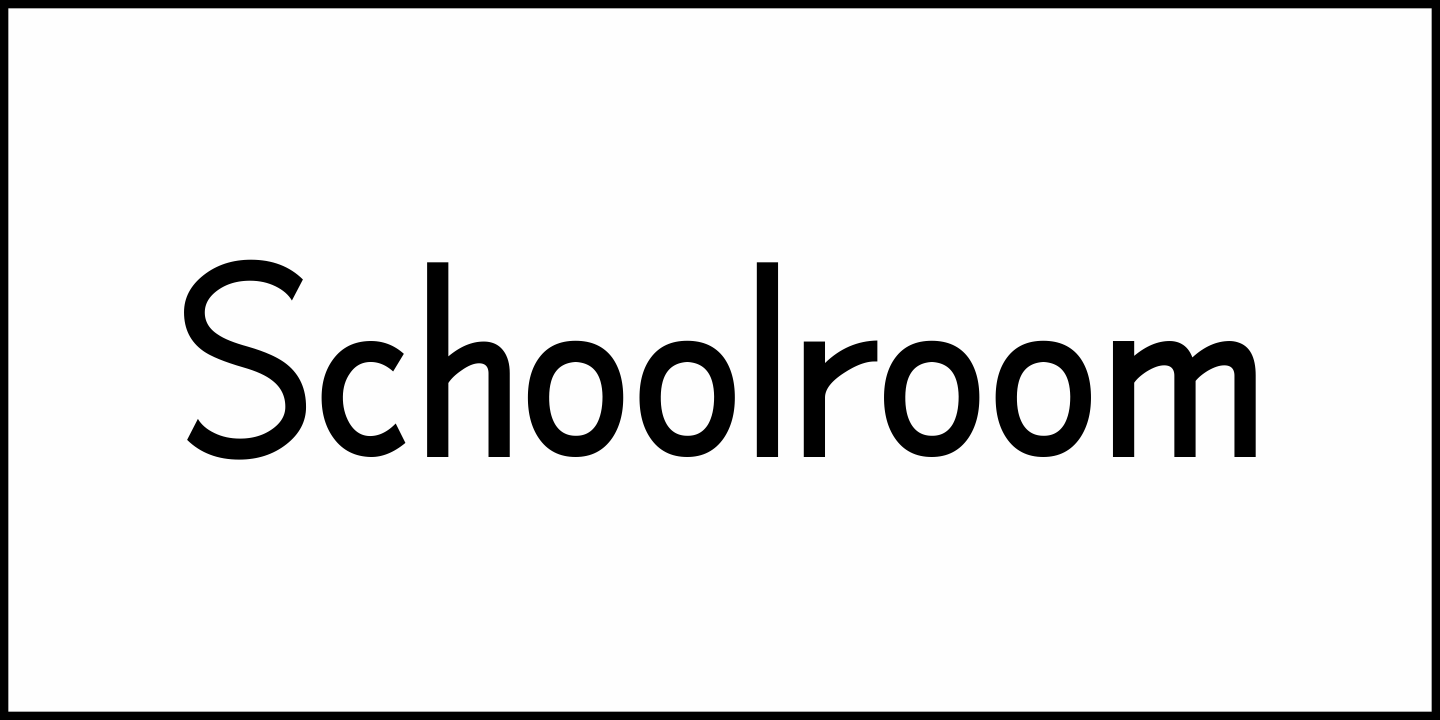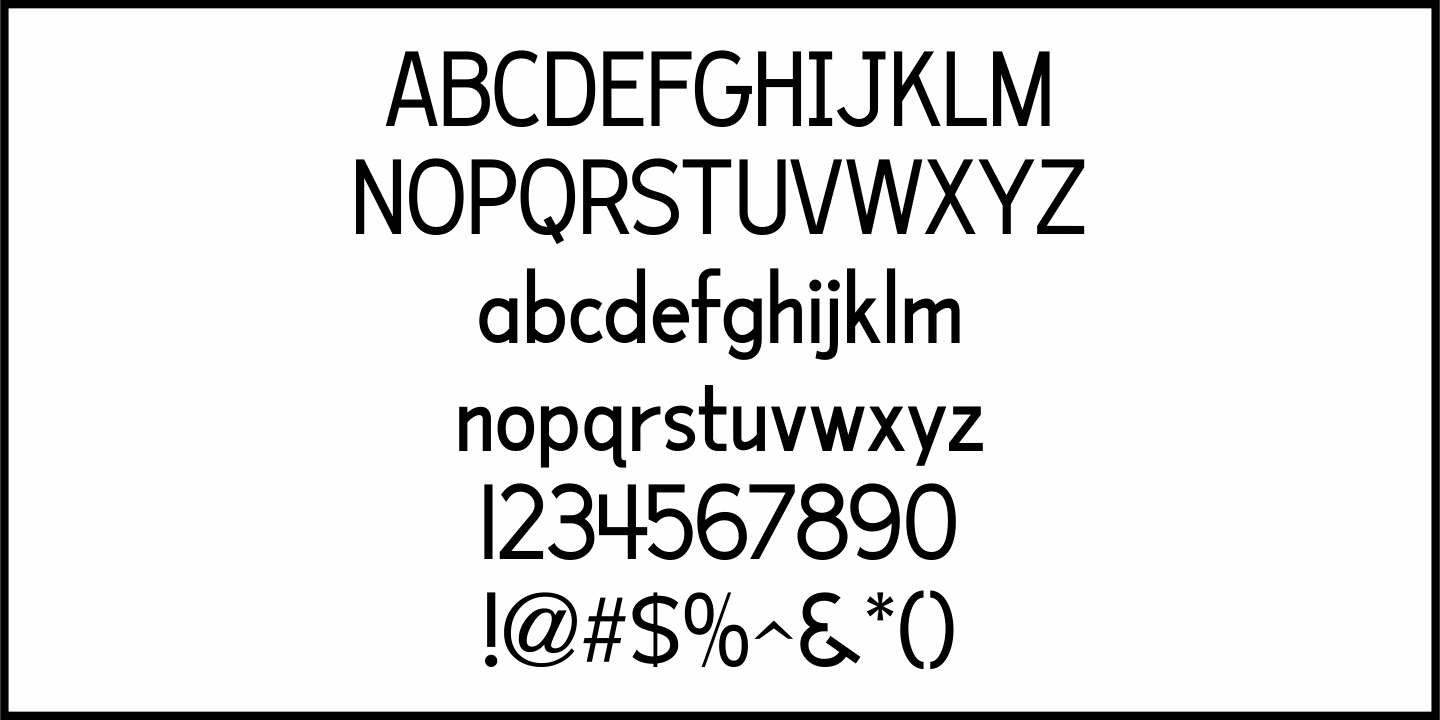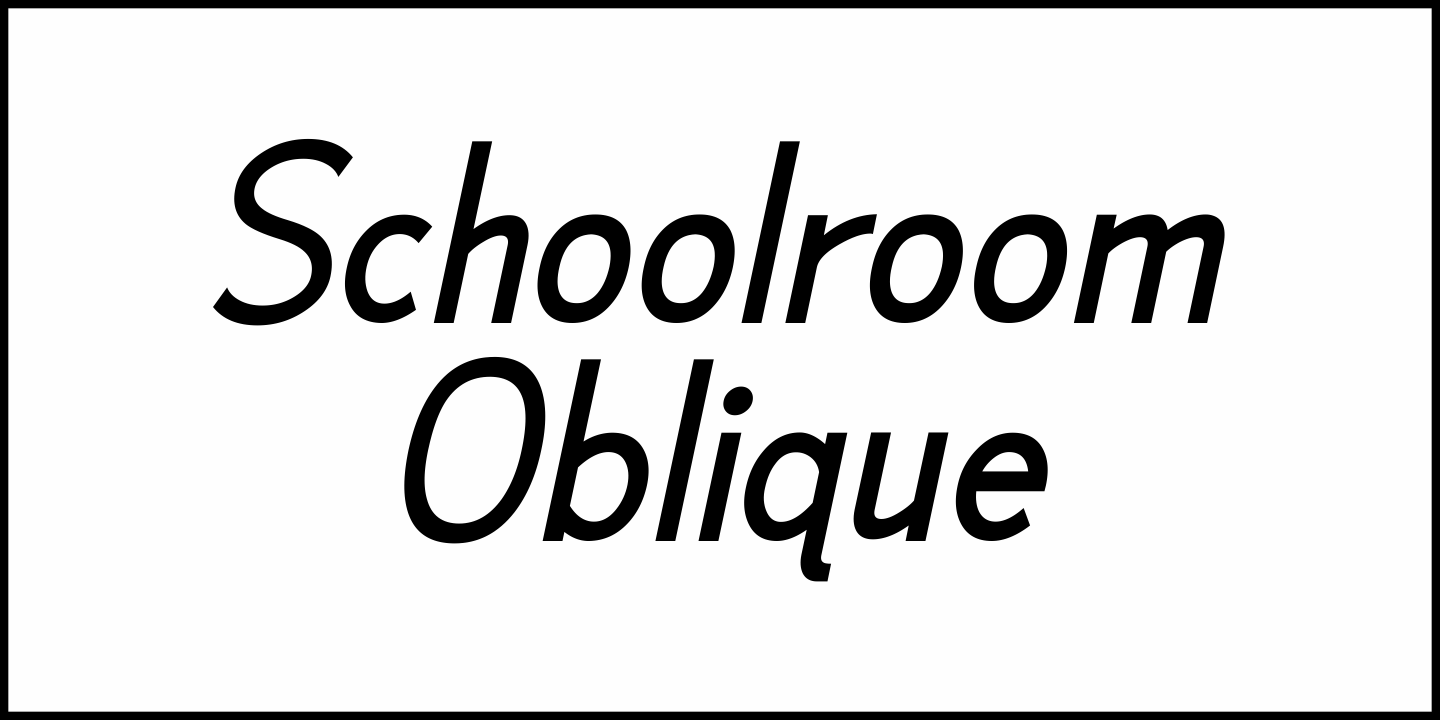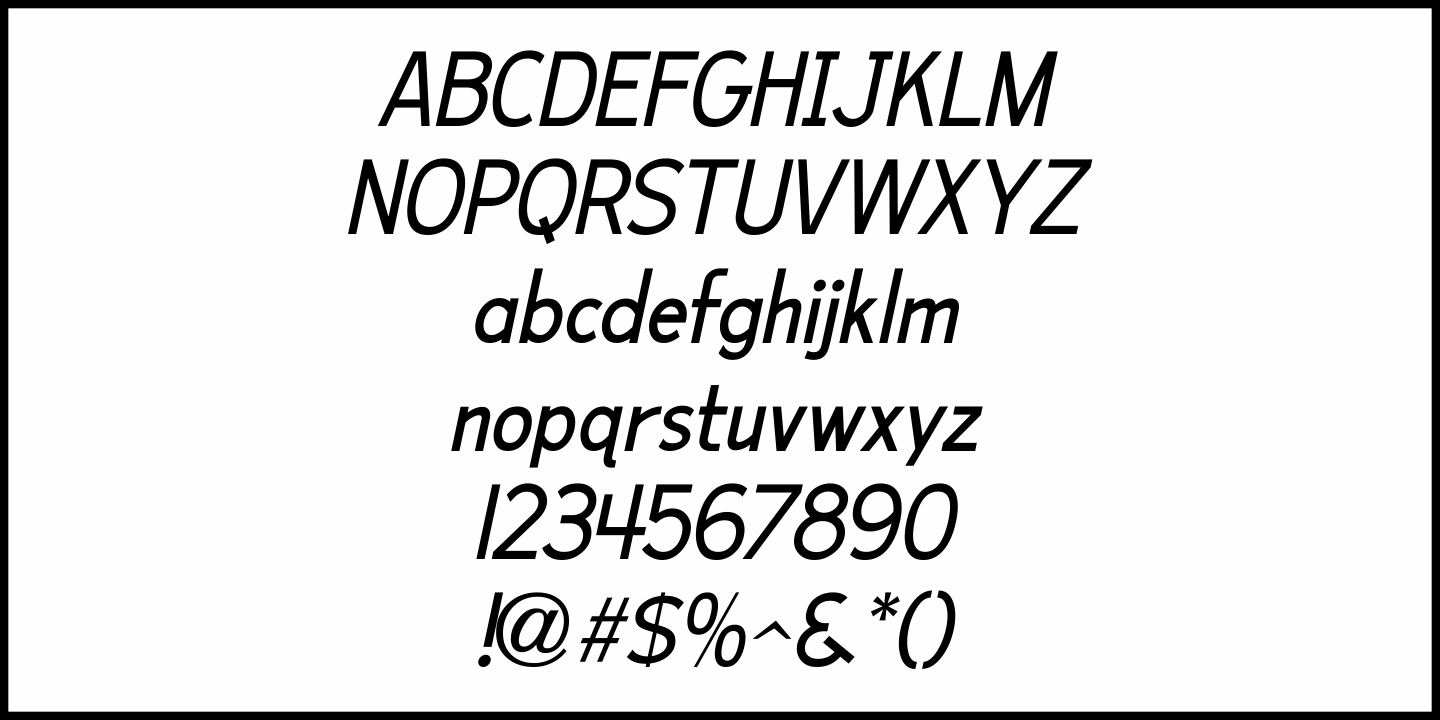
Schoolroom
Based on the type style used for the Superior Sign and Chart Printer No. 929, this simple and clean sans serif font was perfectly suited for use by teachers in the classroom and for businesses and organizations that needed to make signs, price cards, charts and notices.
Digitally redrawn as Schoolroom JNL, it is available in both regular and oblique versions.
The Superior Marking Equipment Company [formerly of Chicago] was not only a major supplier of materials for the rubber stamp industry, but for most of its existence manufactured date and numbering stamps, sign and chart printers (such as the one used for this font), and a line of children’s printing toys (amongst other items).